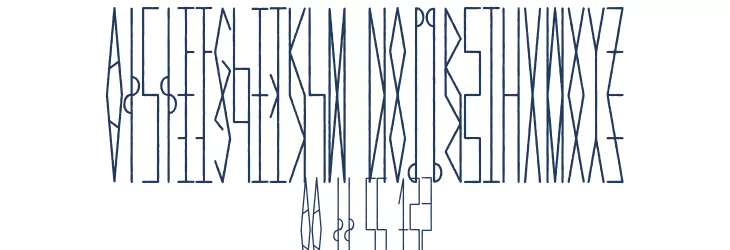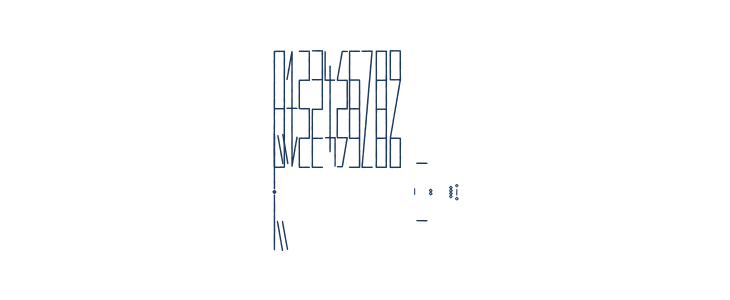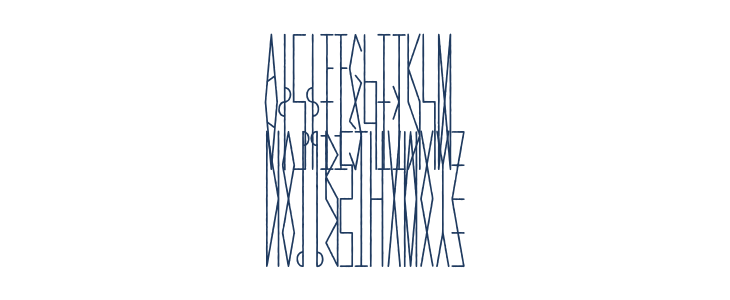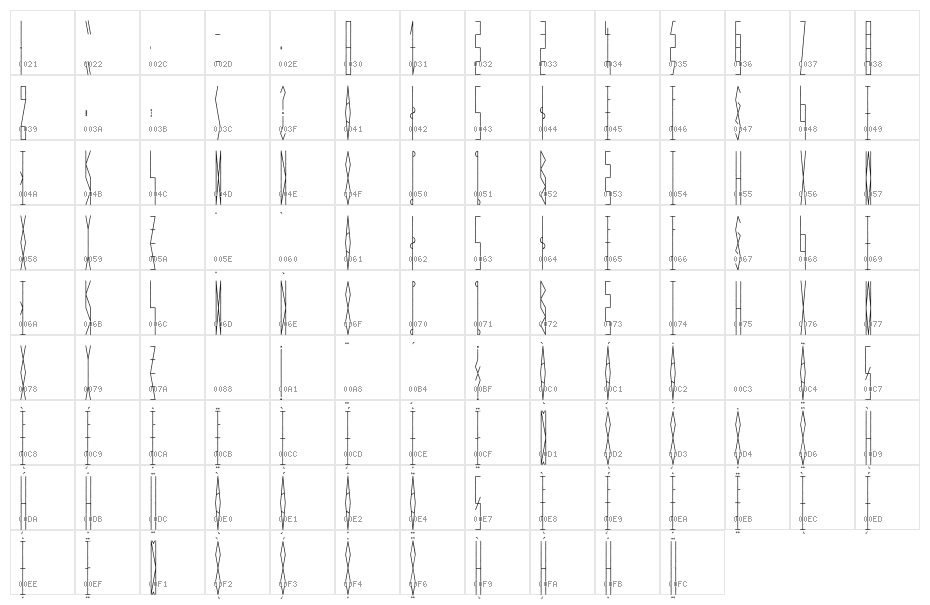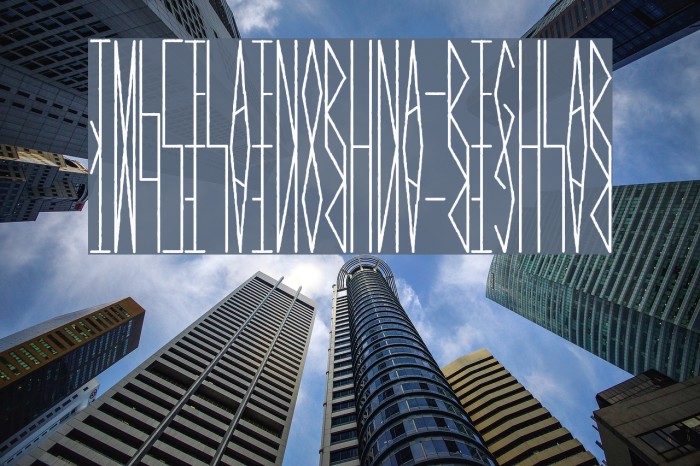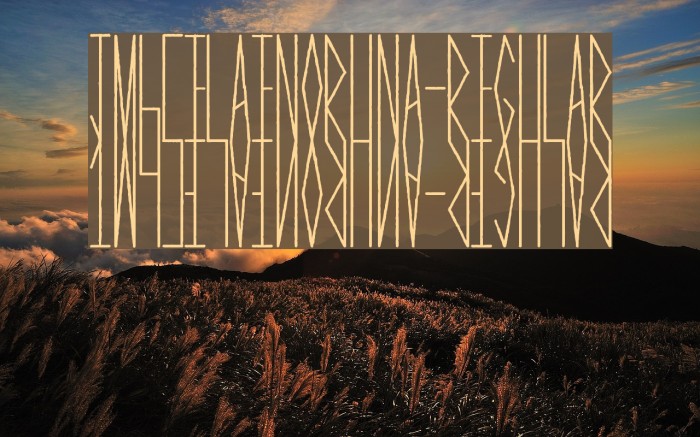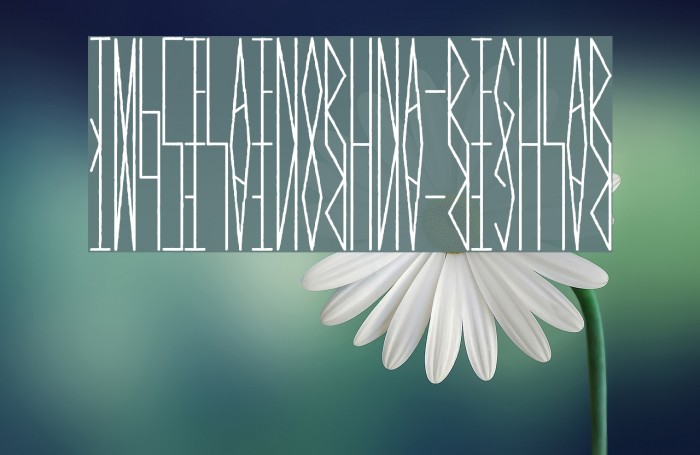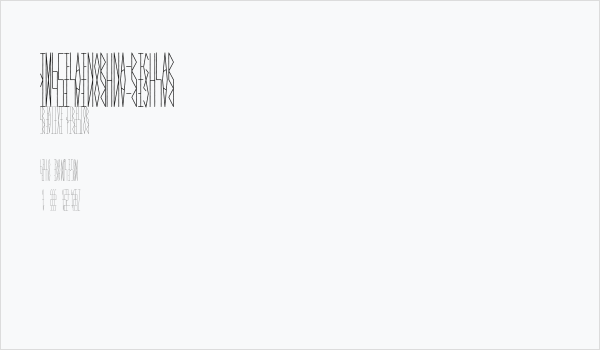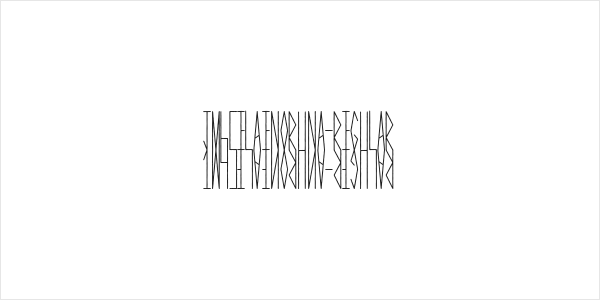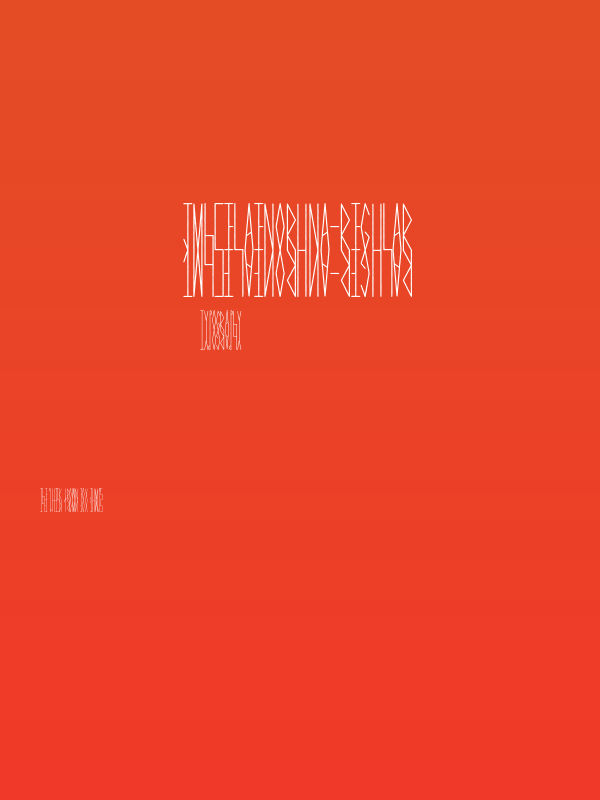
JMHCelaenoRuna-Regular Font
JMHCelaenoRuna-Regular Description
This font features an intricate and highly decorative design, characterized by elongated and narrow letterforms with sharp angles and unique geometric patterns. The uppercase and lowercase letters share a consistent style, creating a cohesive and artistic appearance. The numbers and special characters maintain this elaborate design, making the font suitable for creative and avant-garde projects. The overall aesthetic is striking and unconventional, with a focus on visual impact and artistic expression.
| Use Case | Logos, Headlines |
| Proposed Projects | Ideal for artistic posters, album covers, fashion branding, and creative digital art. |